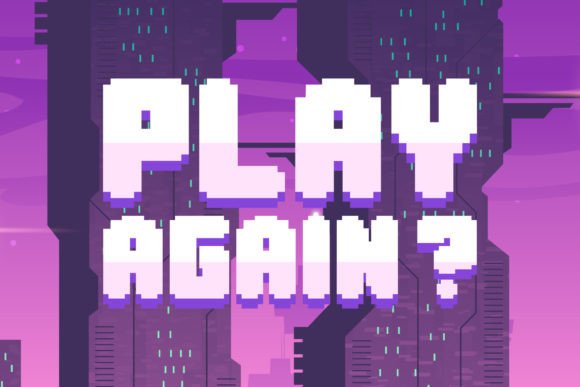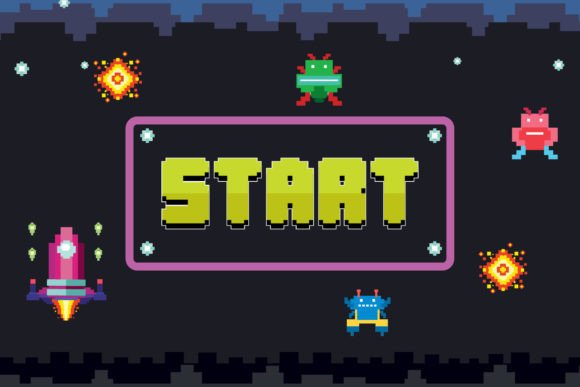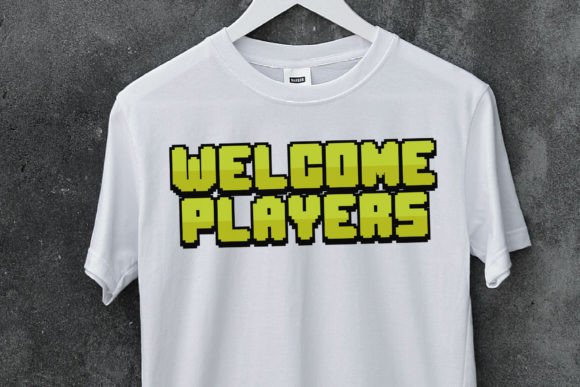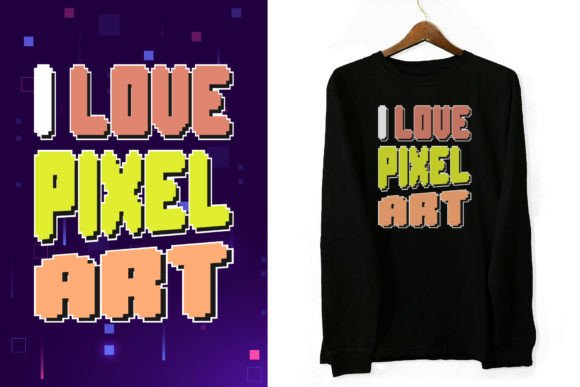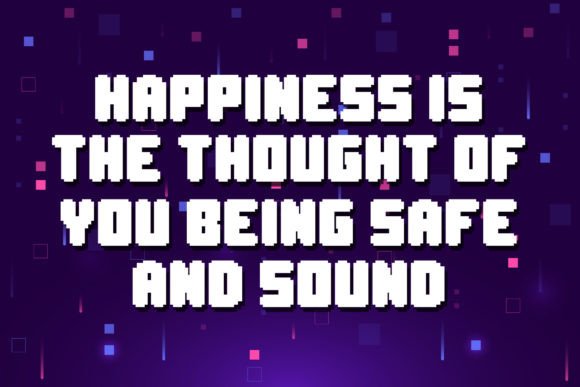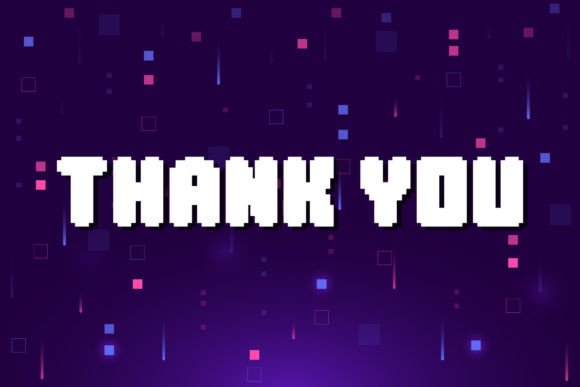
Introducing Game Over Font: Unleash Playfulness in Your Designs
Are you tired of using the same old fonts in your designs? Do you want to add a touch of playfulness and creativity to your projects? Look no further than Game Over Font, a fun and playful display font that’s sure to transport your designs into a vibrant world of imagination and joy.
The Essence of Playfulness
Game Over Font is designed to capture the essence of playfulness, with bold, dynamic letterforms that exude an adventurous spirit. This font is perfect for designers and crafters who want to infuse their projects with a whimsical and lively aesthetic. Whether you’re working on a children’s book, a game, or a website, Game Over Font is sure to add a delightful and imaginative flair to your creative expressions.
Key Features of Game Over Font
- Bold and Dynamic Letterforms: Game Over Font features bold, dynamic letterforms that are sure to grab attention. Each letter is carefully crafted to convey a sense of playfulness and energy.
- Whimsical and Lively Aesthetic: This font is perfect for projects that require a whimsical and lively aesthetic. It’s ideal for designers who want to add a touch of fun and creativity to their work.
- Versatile: Game Over Font is versatile and can be used in a variety of projects, from children’s books to games, websites, and more.
- Easy to Read: Despite its bold and dynamic design, Game Over Font is easy to read, making it perfect for use in a variety of applications.
Uses of Game Over Font
Game Over Font is perfect for a wide range of projects, including:
- Children’s Books: Add a touch of playfulness to your children’s book with Game Over Font. This font is perfect for titles, headings, and even body text.
- Games: Game Over Font is perfect for game developers who want to add a touch of fun and excitement to their games. Use it for game titles, menus, and more.
- Websites: Add a touch of whimsy to your website with Game Over Font. This font is perfect for headings, titles, and even body text.
- Posters and Flyers: Game Over Font is perfect for creating eye-catching posters and flyers. Use it to grab attention and add a touch of playfulness to your designs.
Tips for Using Game Over Font
Here are some tips for using Game Over Font in your designs:
- Use it Sparingly: Game Over Font is a bold and dynamic font, so use it sparingly to avoid overwhelming your design.
- Pair it with Other Fonts: Pair Game Over Font with other fonts to create a unique and interesting design. Try pairing it with a serif font for a bold and dynamic look.
- Experiment with Colors: Game Over Font looks great in a variety of colors. Experiment with different colors to find the one that works best for your design.
Game Over Font is a fun and playful display font that’s perfect for designers and crafters who want to add a touch of playfulness and creativity to their projects. With its bold, dynamic letterforms and whimsical aesthetic, this font is sure to transport your designs into a vibrant world of imagination and joy. So why wait? Download Game Over Font today and start creating!